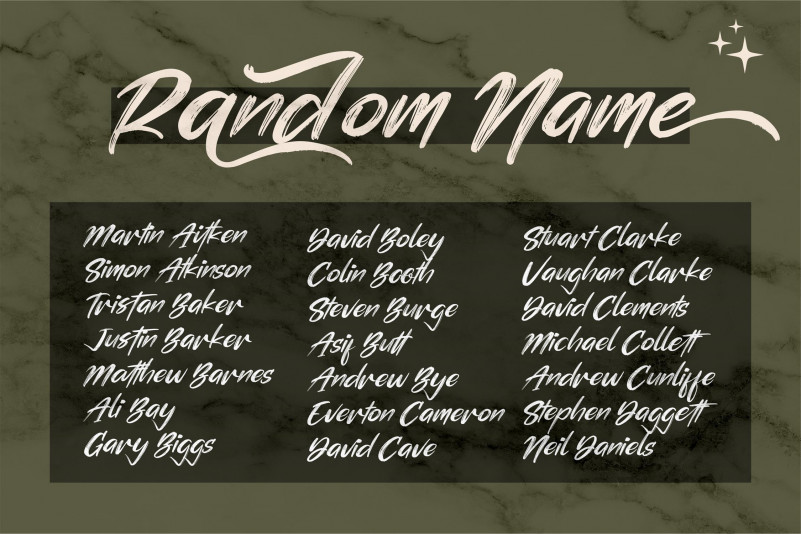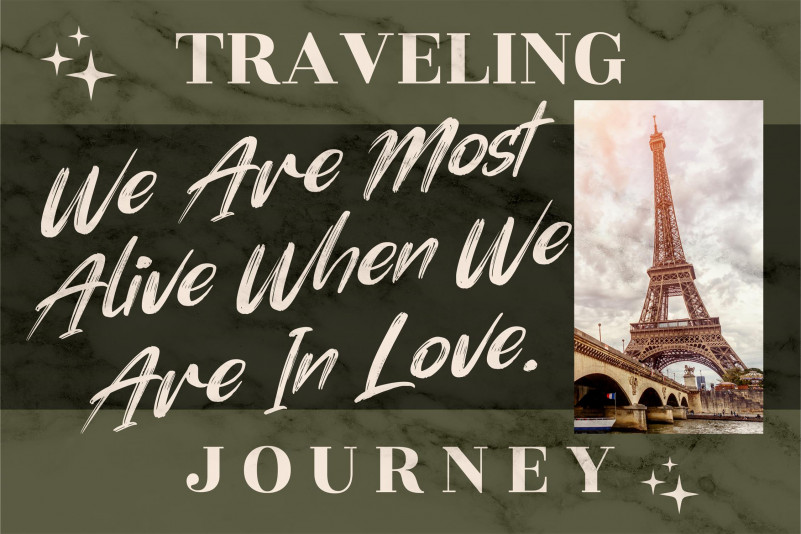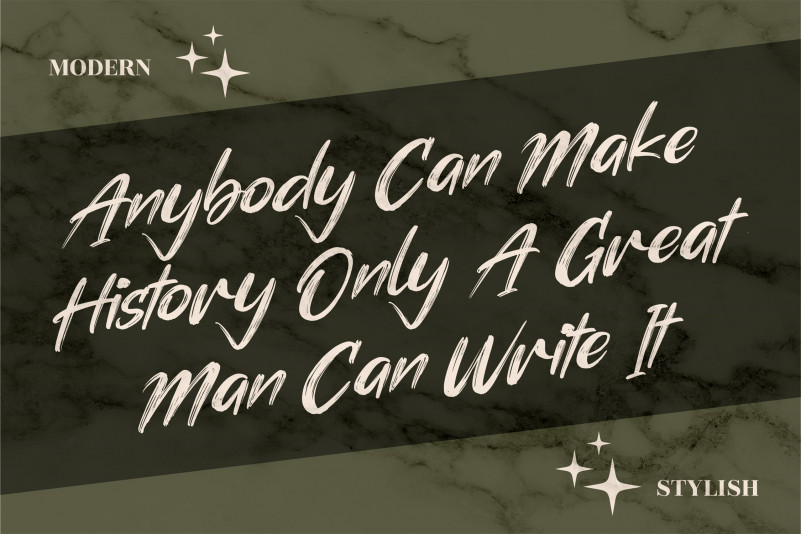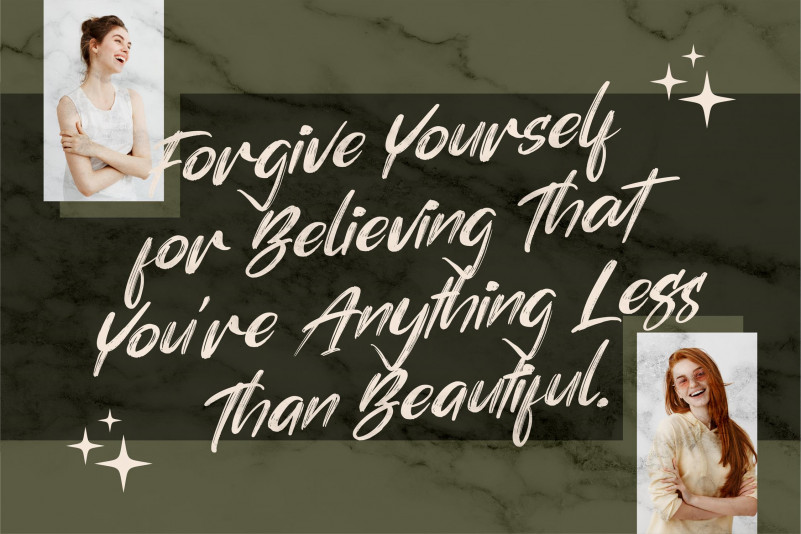
Simphony Brushe Font
Simphony Brushe Brush Font
This is a handwritten font, suitable for any projects such as: logos, branding projects, homeware designs, product packaging, mugs, quotes, posters, shopping bags, t-shirts, book covers, name card, invitation cards, greeting cards, label, photography, watermark, special events, and all your other luxury projects that need a handwritten taste.